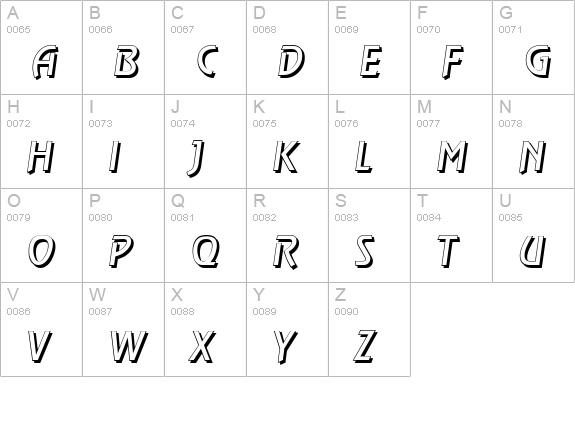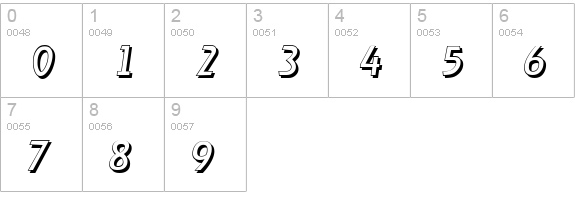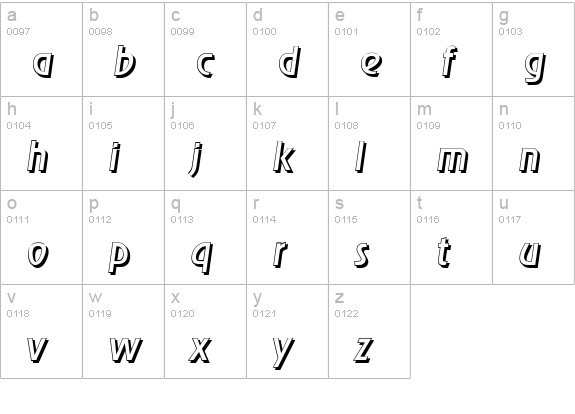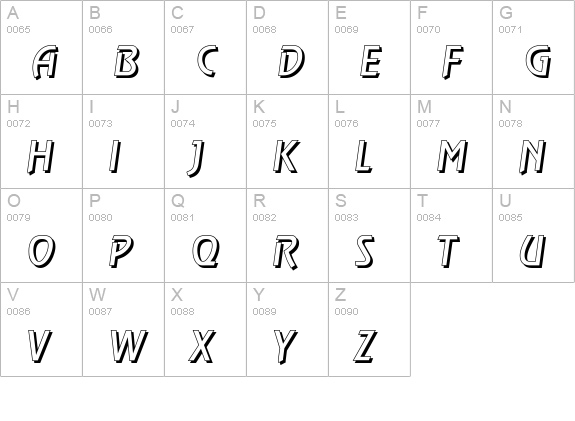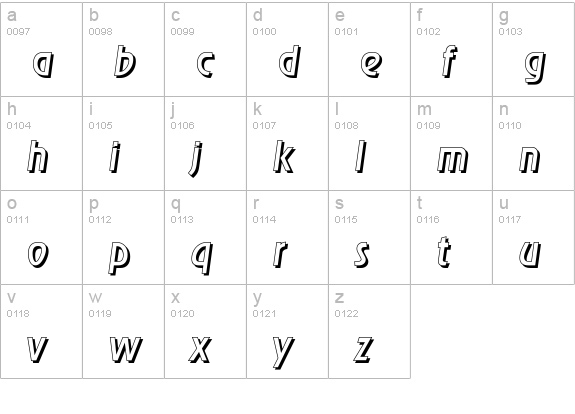
OnStageShadow-Italic Font Details
OnStageShadow-Italic is a distinctive, italic variant in the OnStageShadow typeface family \xE2\x80\x94 well suited to design and typography projects.
OnStageShadow-Italic font is a stylish and sophisticated typeface that exudes elegance and charm. Its italic design adds a touch of flair to any project, making it perfect for creating eye-catching headlines, invitations, or branding materials. The unique shadow effect gives the text a subtle depth and dimension, adding a dynamic element to your designs. Best of all, OnStageShadow-Italic font is available for free download at FontsMarket.com. Whether you're a professional designer looking to add a new font to your collection or a hobbyist seeking to enhance your creative projects, this font is a fantastic choice. Don't miss out on the opportunity to elevate your designs with the OnStageShadow-Italic font - download it today and unleash your creativity!